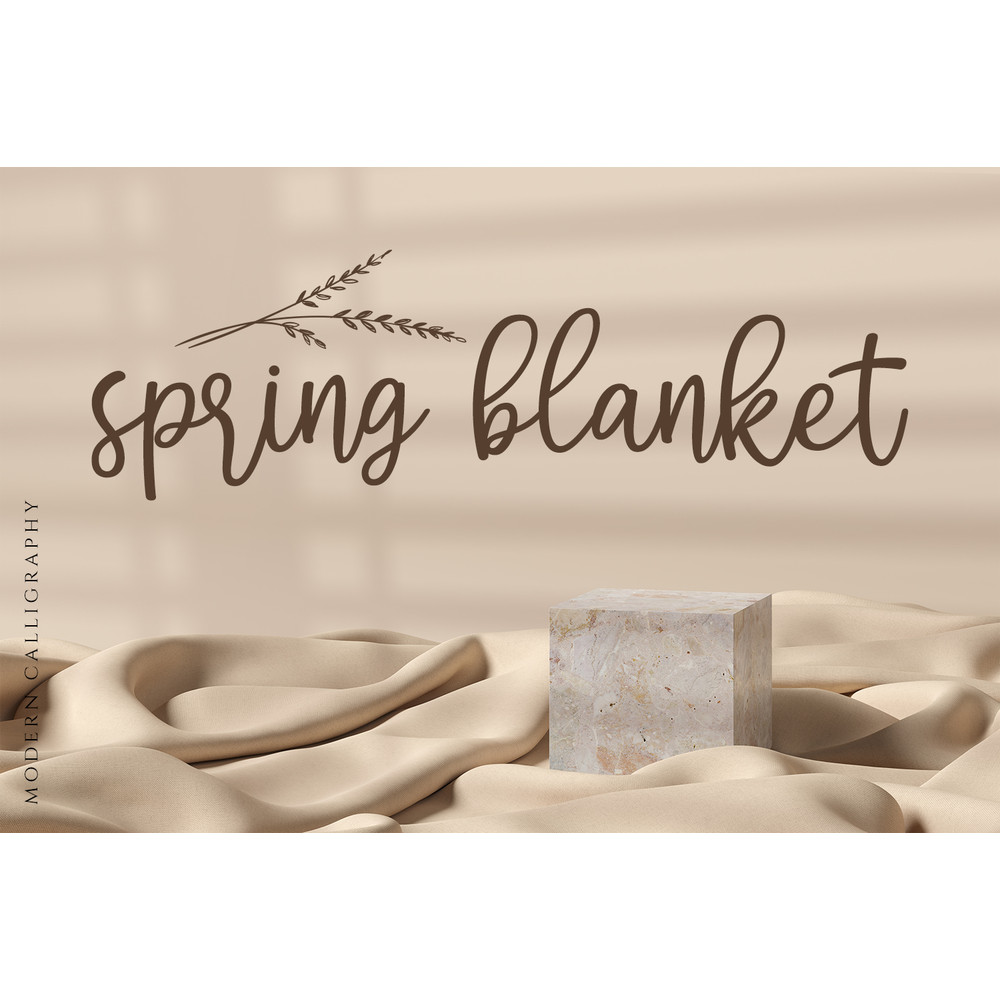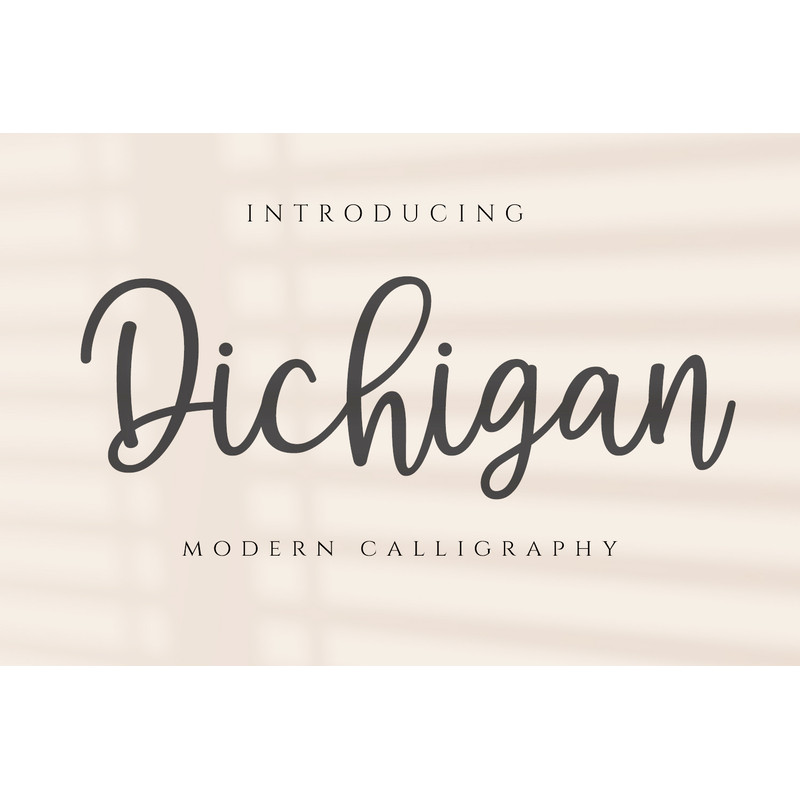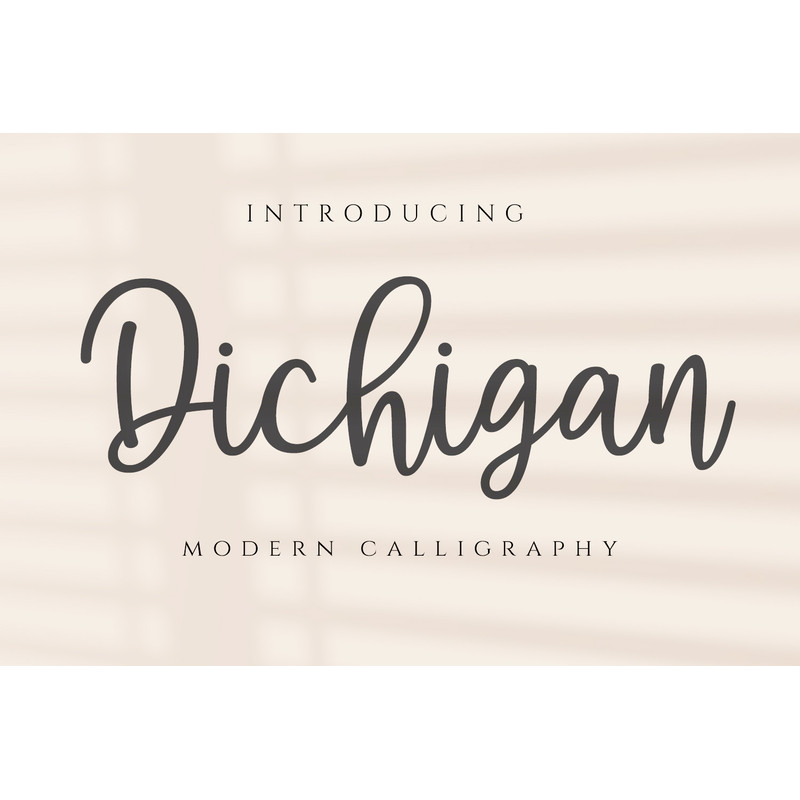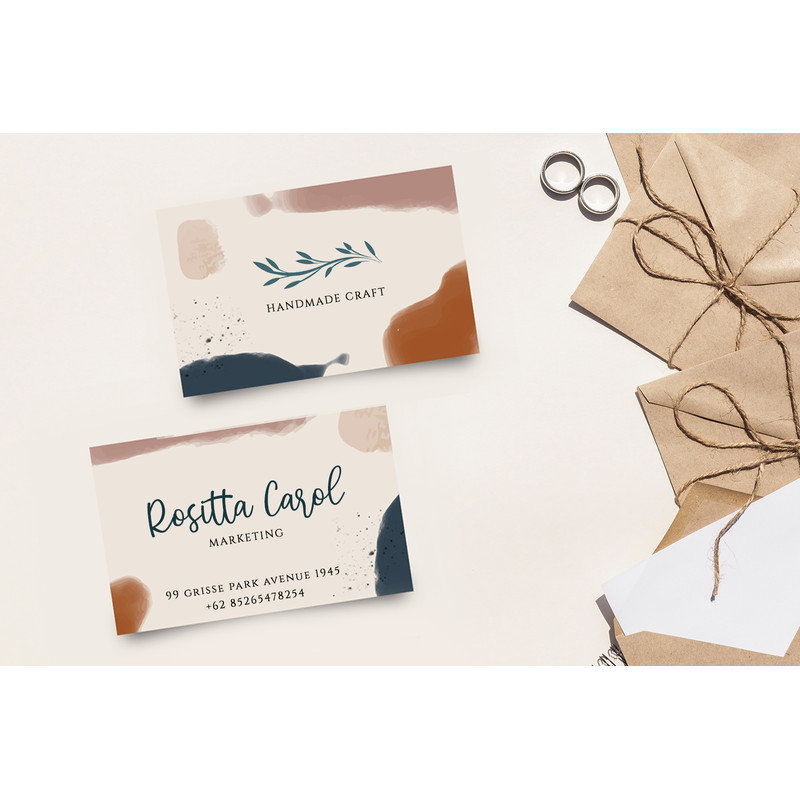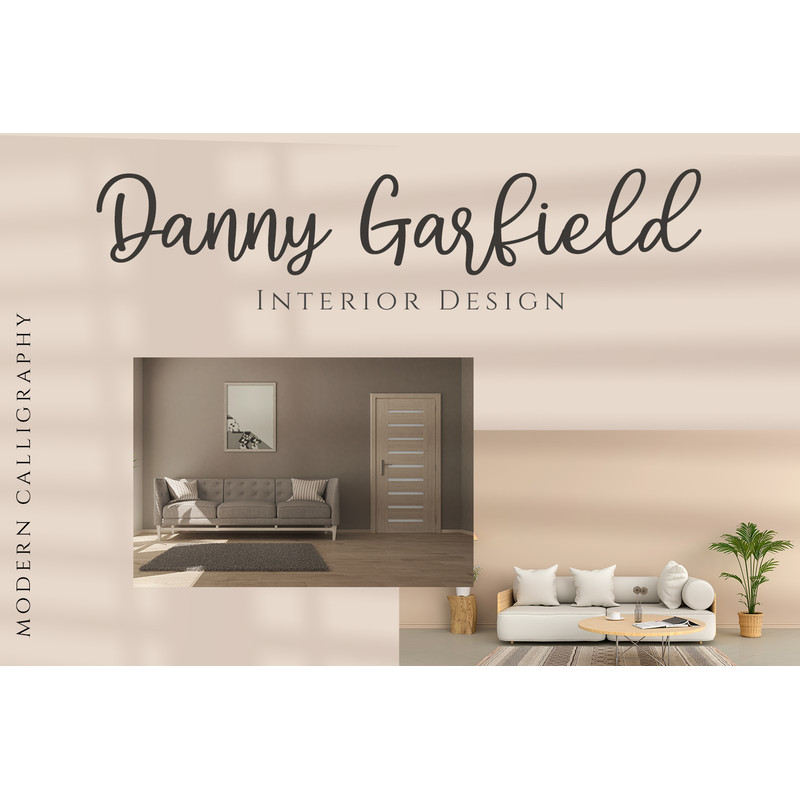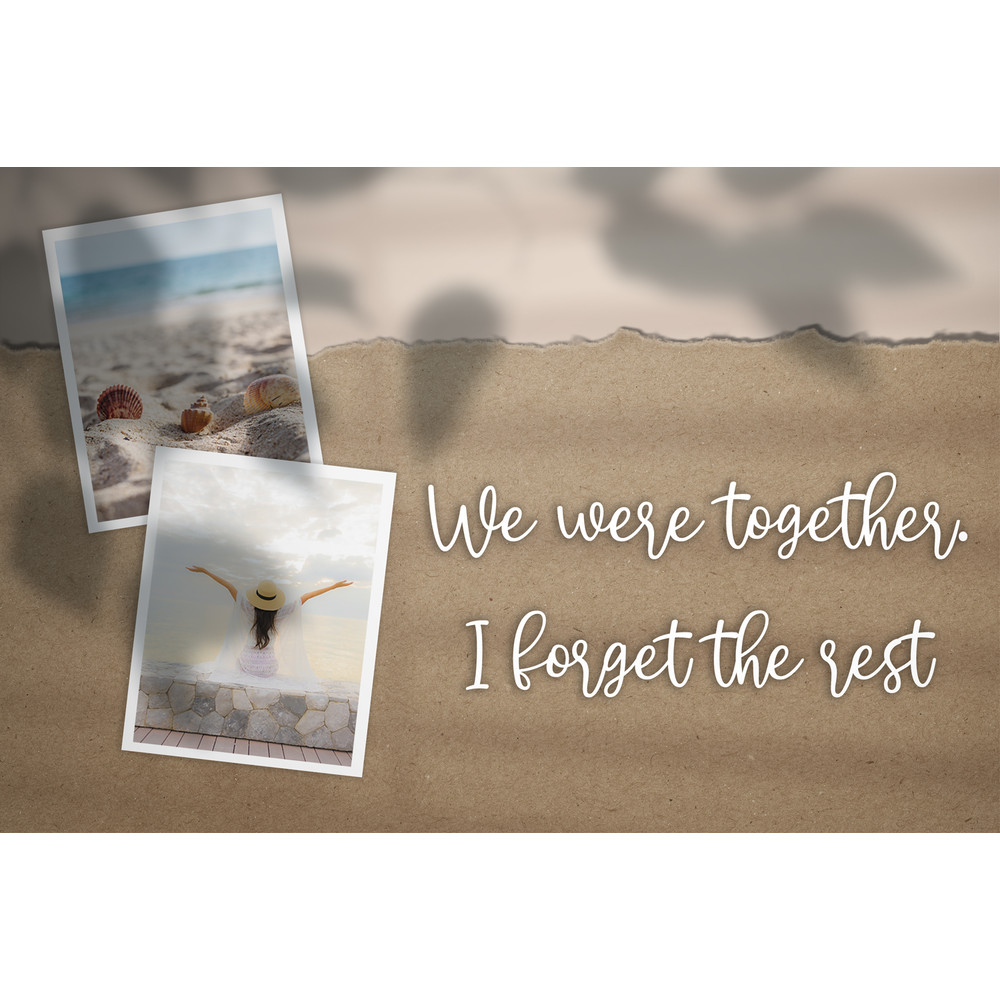
Dichigan – Modern Calligraphy Script Trending Fonts - Digital Font
Dichigan is a modern beauty calligraphy font. Bravely will work perfectly for wedding, food, e-commerce brands, trend blogs, boutiques or any business that wants to appear upscale and sweet.